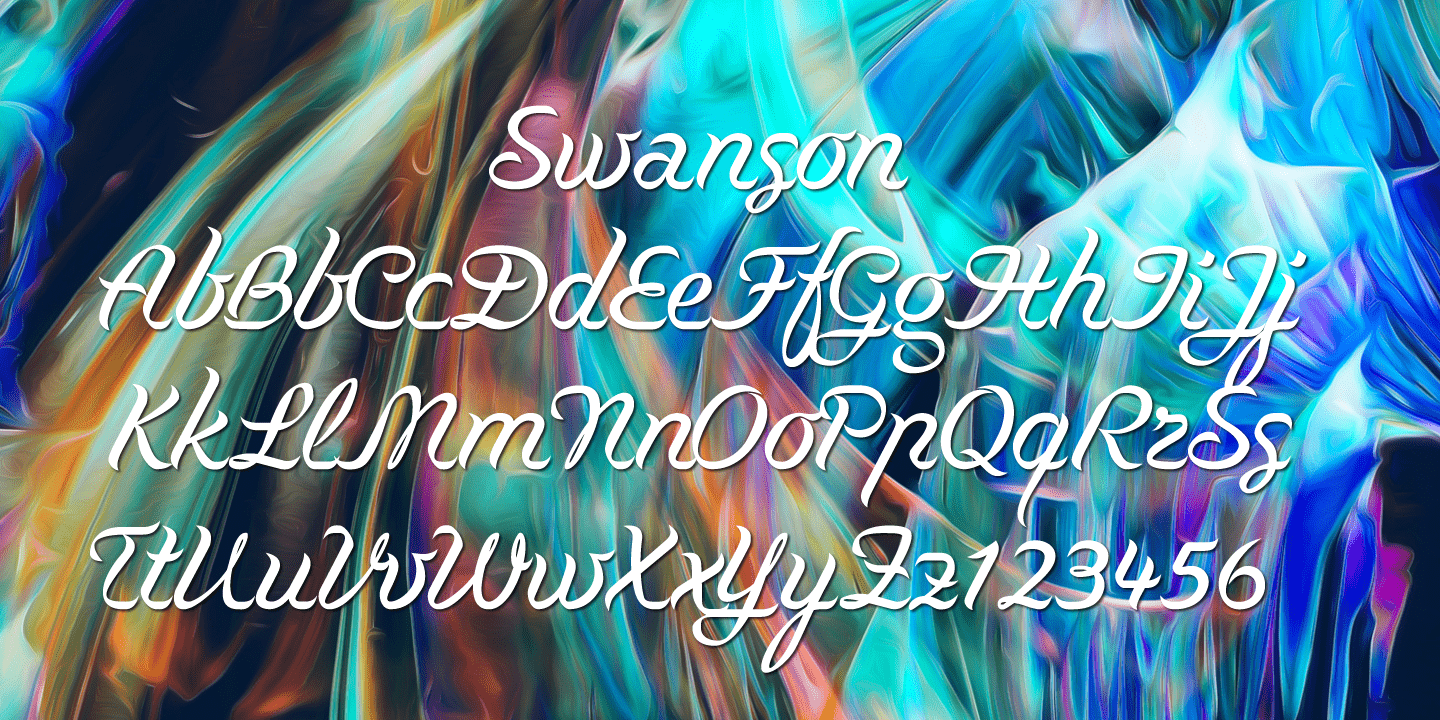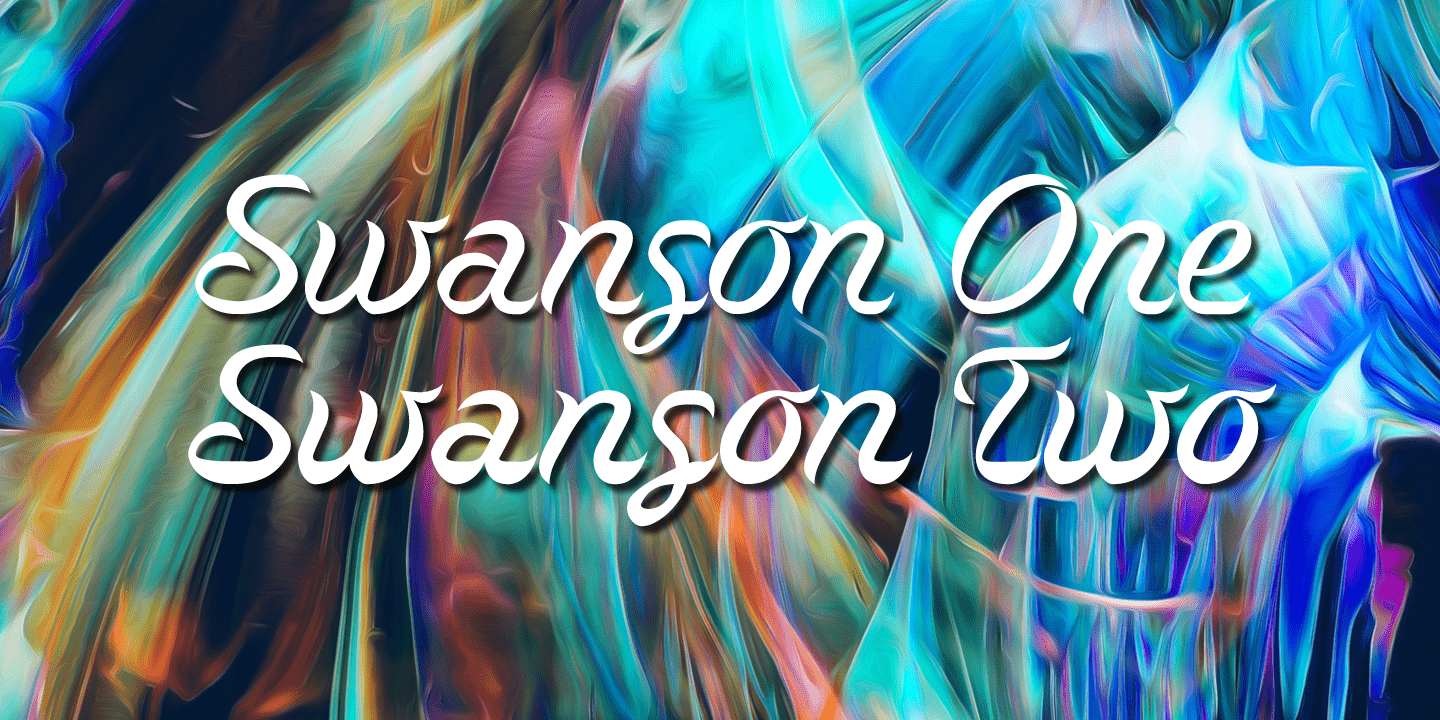
Swanson
Font Family by Wiescher Design
'Swanson' is the son of the swan.
This doesn't make a lot of sense to non-type designers, so I need to explain. The late, great Italian type designer, Aldo Novarese, designed around 1950 a typeface for Nebiolo that he called 'Cigno' which means swan. Cigno was one of Aldo's rare ventures into the design of a script. When I designed Swanson I had Cigno in my mind. But it turned out a much different typeface. I designed Swanson twins. Swanson One being the light elegantly floating Swan and Swanson Two the more accentuated heavier brother typeface. I like them both and since they are twins I did not want to split them up, I only sell the pair for a fair price.